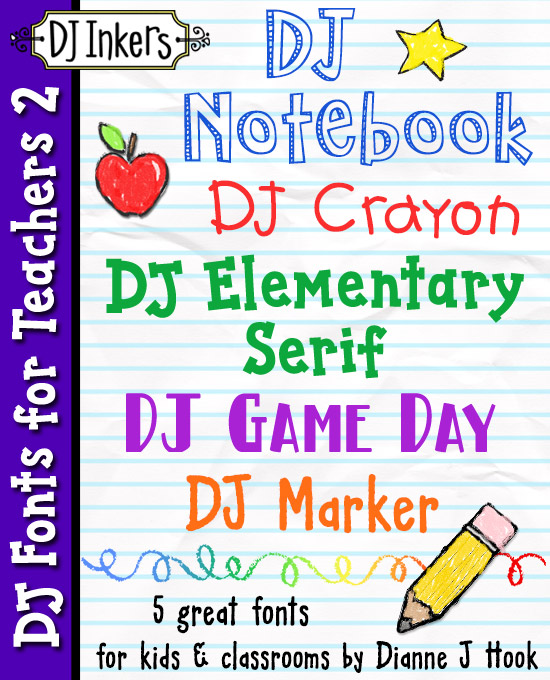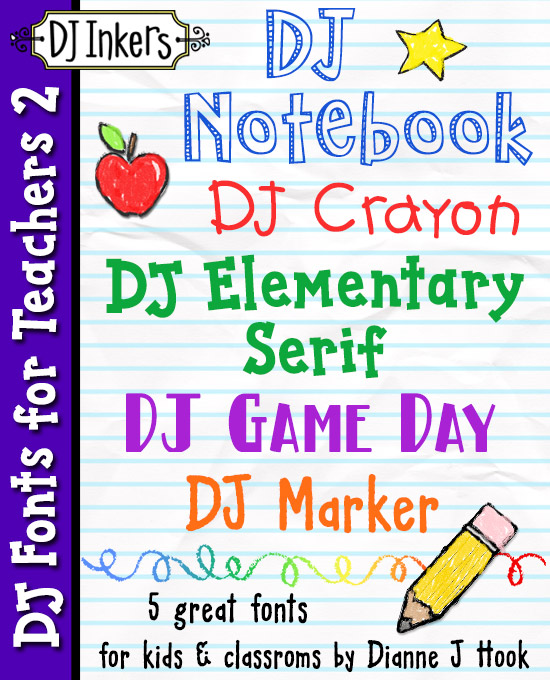
5 great fonts for teachers and schools by DJ Inkers
DJ Fonts For Teachers 2 - 5 Font Bundle
Our Fonts for Teachers package was such a big hit, we decided to create a sequel! This FONT-astic collection includes:  DJ Notebook, DJ Crayon, DJ Elementary Serif, DJ Game Day and DJ Marker.
DJ fonts are a fun and simple way to add smiles to your classroom and projects for school. Download instant smiles today!